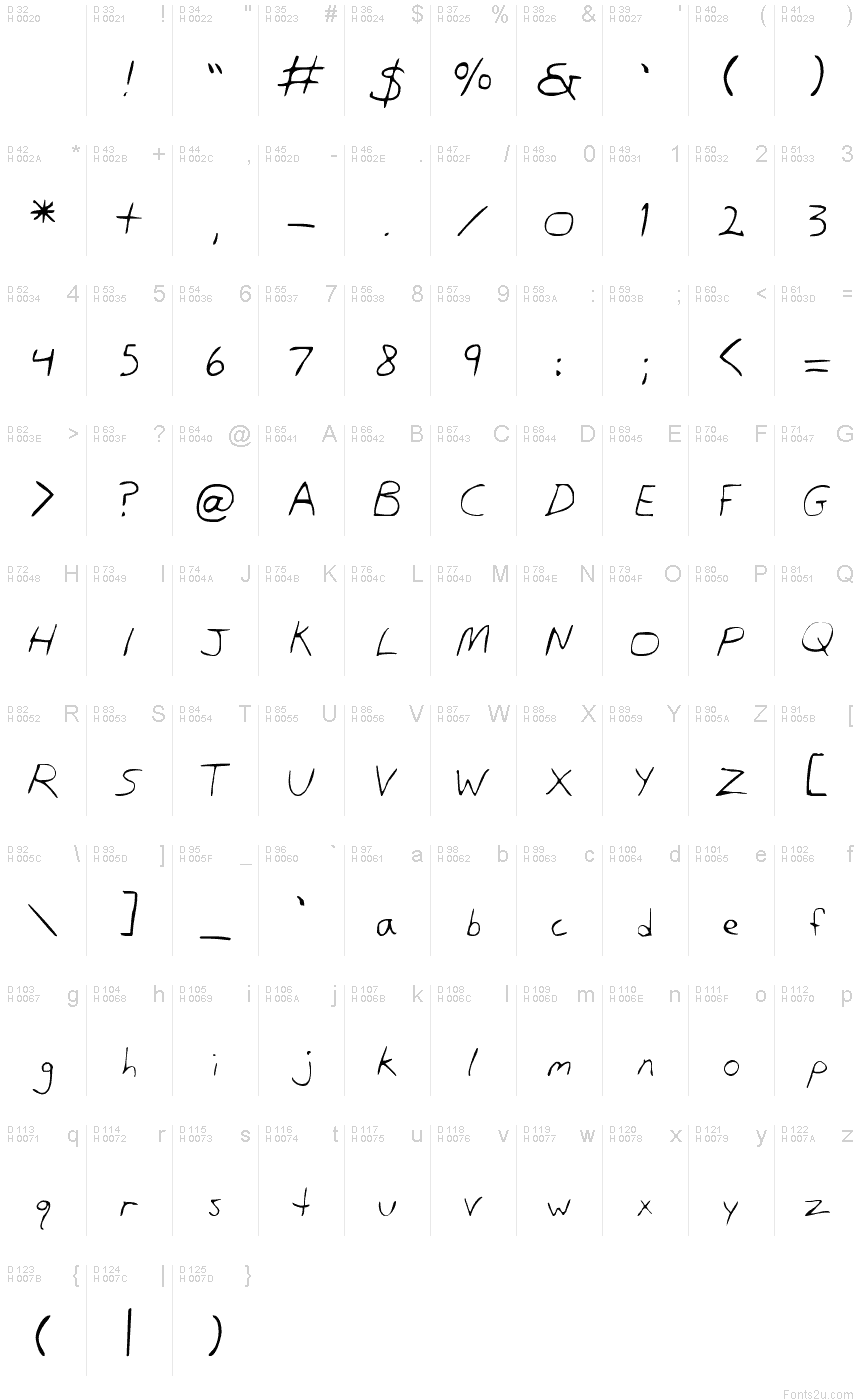
Dan's Hand
Dan's Hand font by Iconian Fonts is a free script font with an easy, ink-on-paper feel. The slightly tilted letters, uneven loops, and quick pen flicks give it a relaxed, personal tone that still reads cleanly at smaller sizes. Pair this lively script with a simple sans serif in lighter weights to keep layouts readable while letting the handwriting style do the expressive work.
Using Dan's Hand, you can add a casual, human touch to social graphics, journaling pages, quote posters, YouTube thumbnails, friendly branding, stickers, and informal invitations. The loose rhythm helps headlines feel spontaneous rather than rigid, and short blocks of text gain personality without turning messy. This free font works beautifully when you give it a bit of breathing room and let the organic stroke variation become part of the design’s voice.